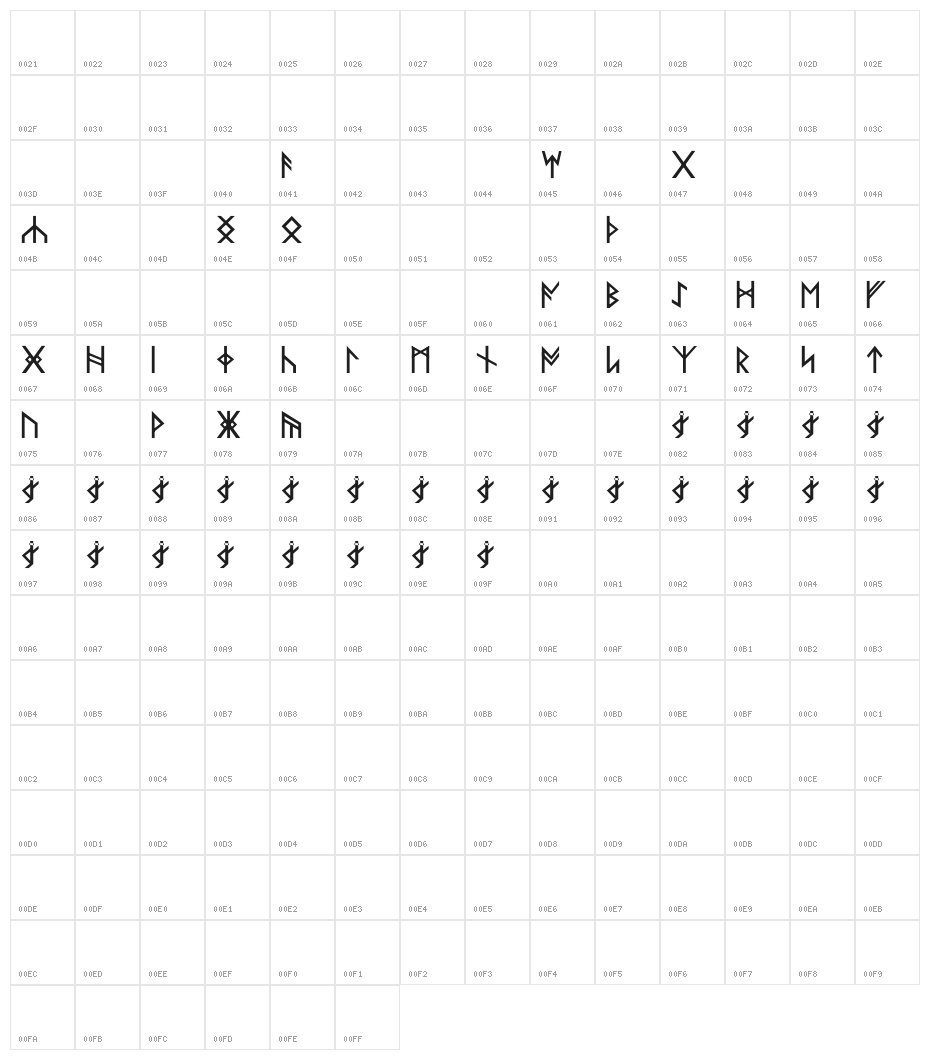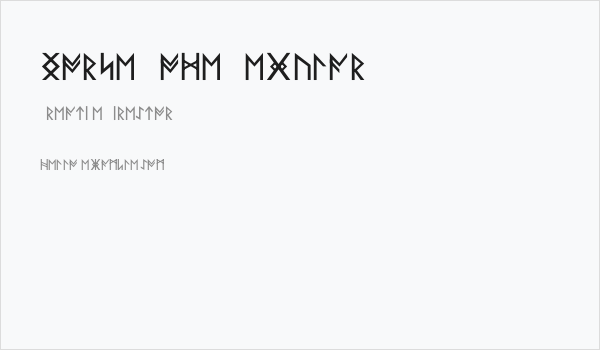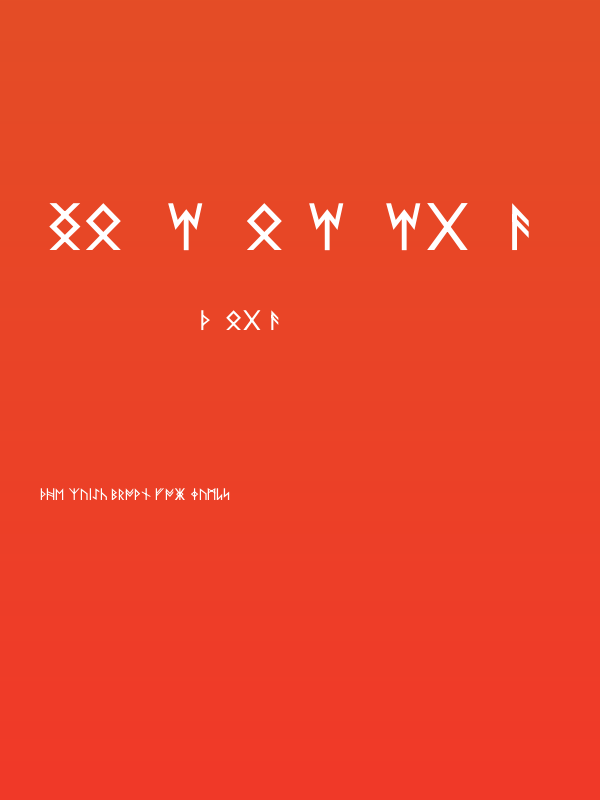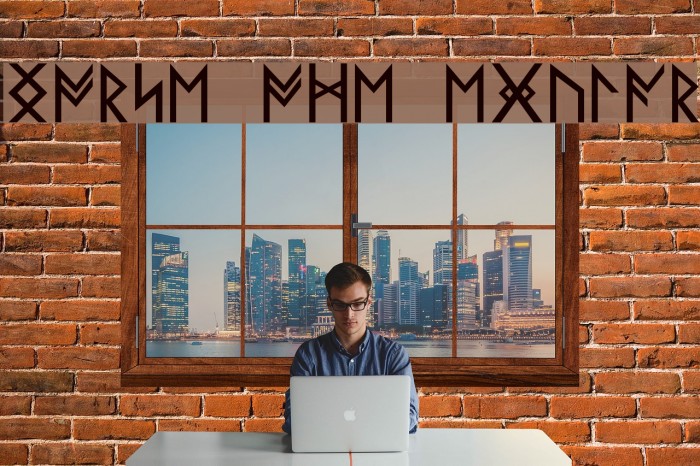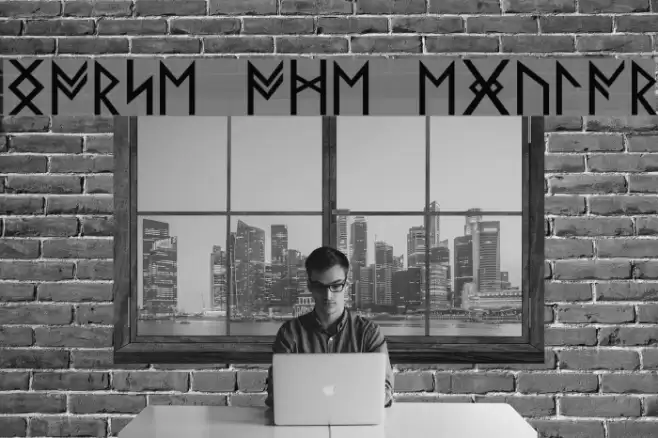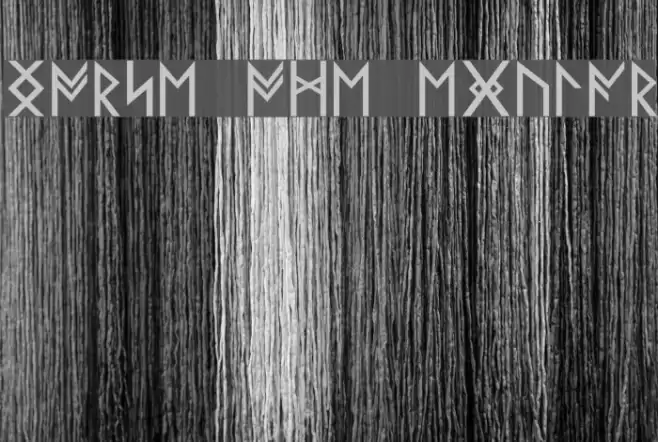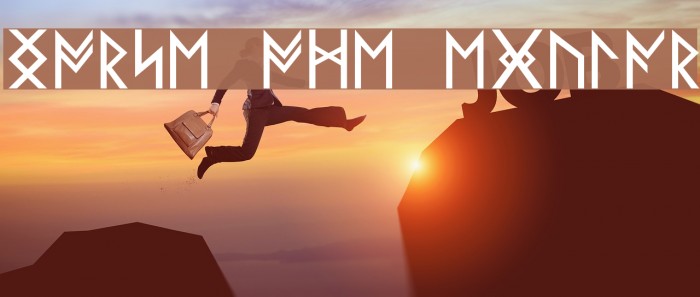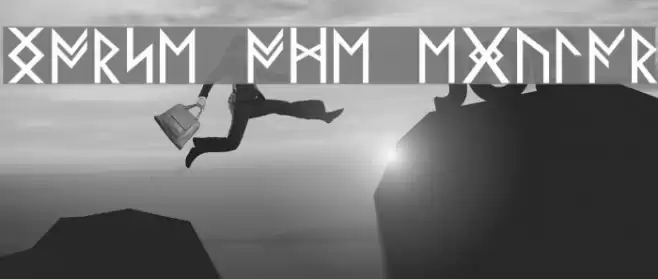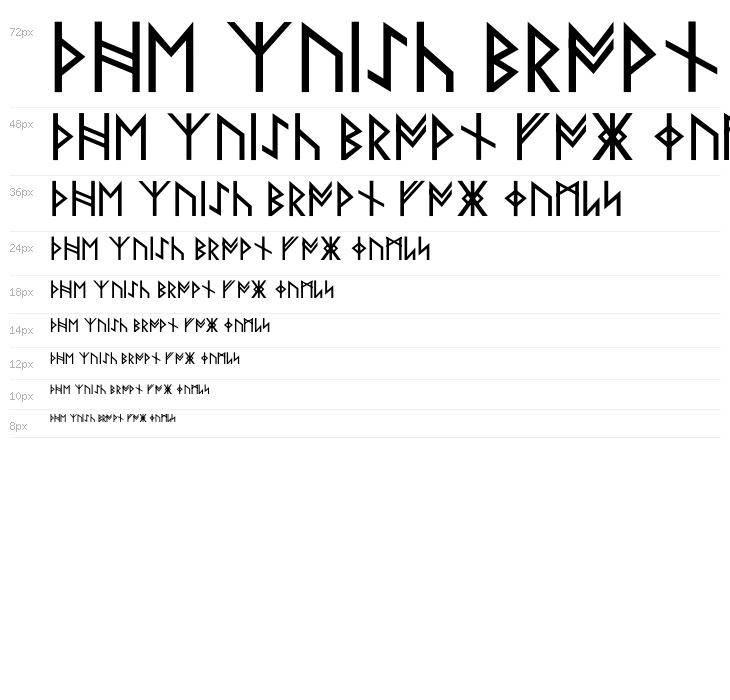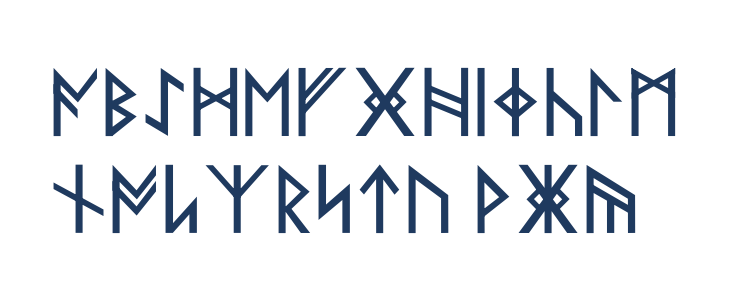
Norse Code Regular Font
Norse Code Regular Description
This font is inspired by ancient runic alphabets, featuring angular and geometric shapes that evoke a sense of mystery and history. Each character is crafted with sharp lines and distinct angles, creating a bold and striking appearance. The design is reminiscent of ancient Norse inscriptions, making it ideal for projects that require a historical or mythical theme. The characters are evenly spaced, ensuring readability while maintaining the unique aesthetic of the runic style. This font is perfect for adding a touch of ancient allure to modern designs.
| Use Case | Logos, Headlines, Posters |
| Proposed Projects | Ideal for fantasy book covers, historical themed posters, video game graphics, and branding for products with a mythical or ancient theme. |